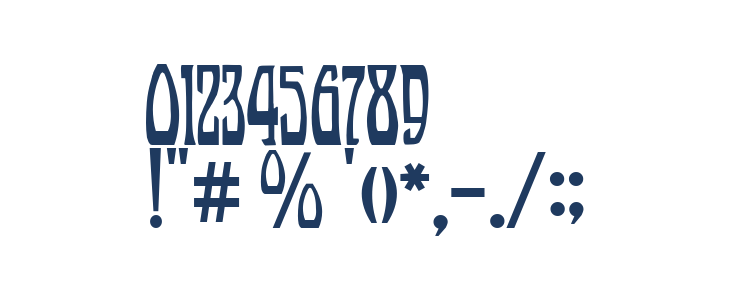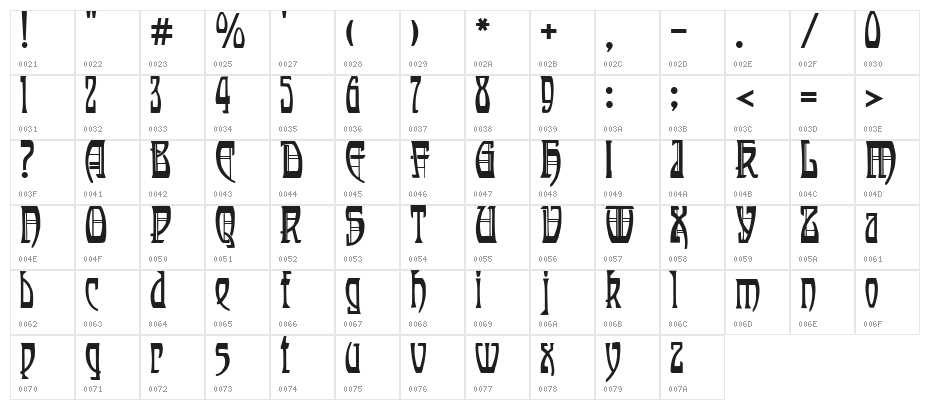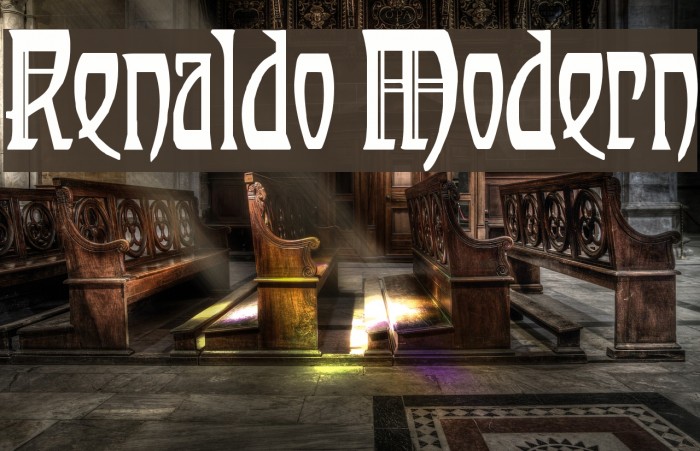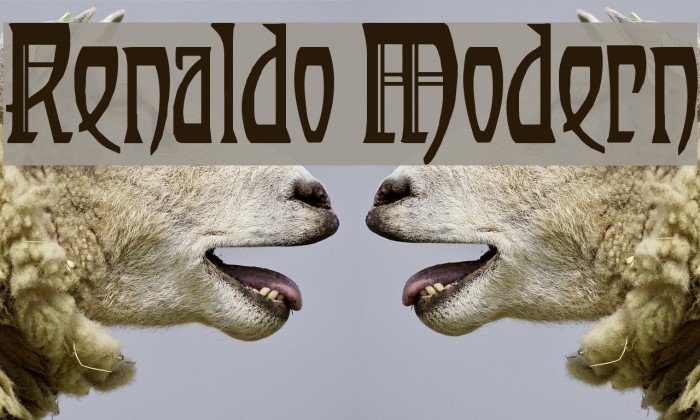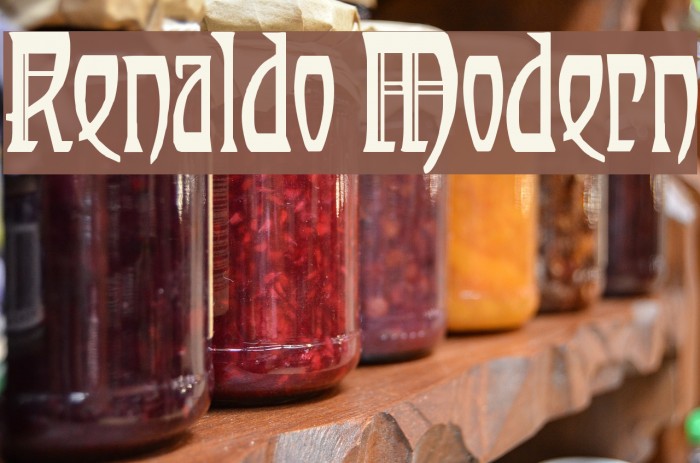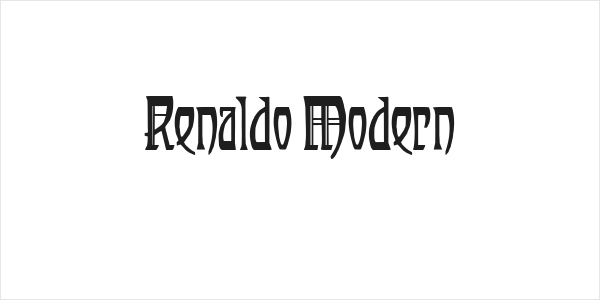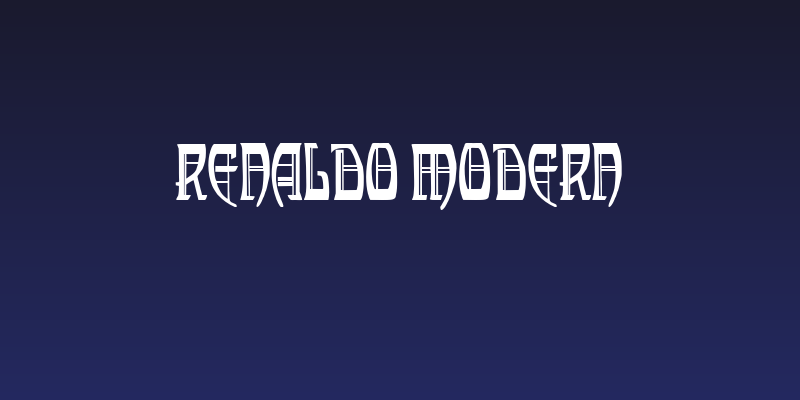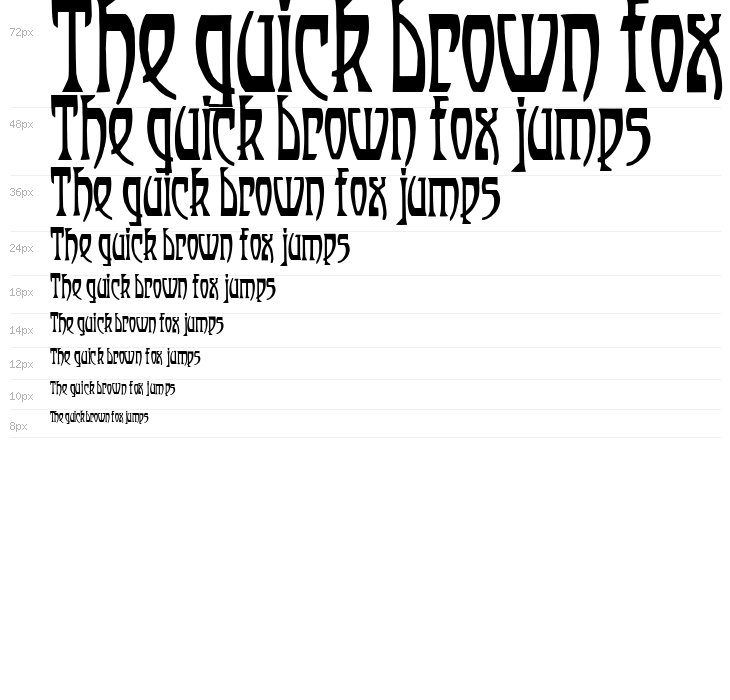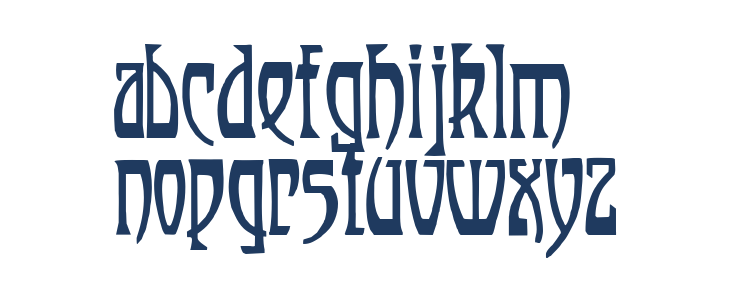
Renaldo Modern Font
Renaldo Modern Description
This font features a bold and dramatic style with sharp, angular lines and a distinct geometric structure. The uppercase letters exhibit a unique blend of modern and gothic influences, with elongated verticals and pointed serifs that create a striking visual impact. The lowercase letters maintain a consistent style, offering a cohesive look across different text sizes. Numbers and special characters are designed with the same boldness, ensuring readability while maintaining the font's overall aesthetic. The font's high contrast between thick and thin strokes adds to its dramatic appearance, making it suitable for attention-grabbing designs.
| Overall Style | Modern Gothic |